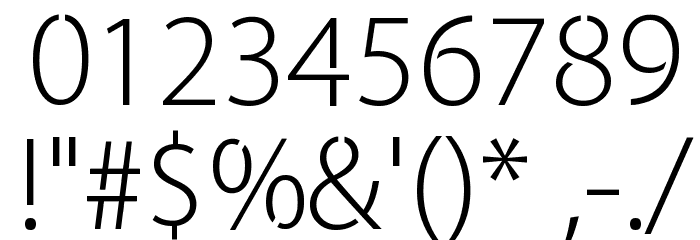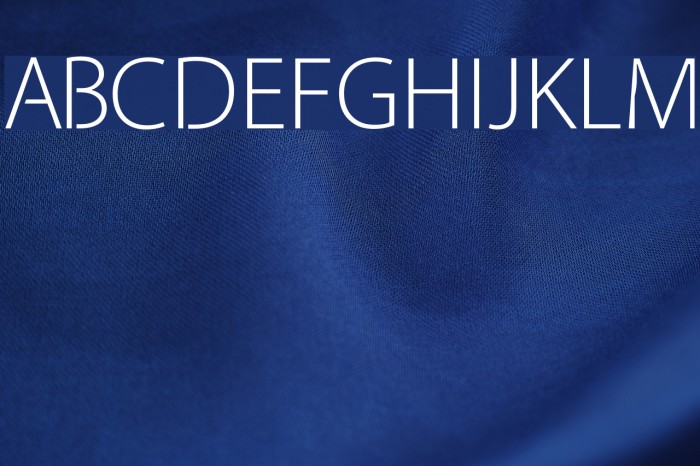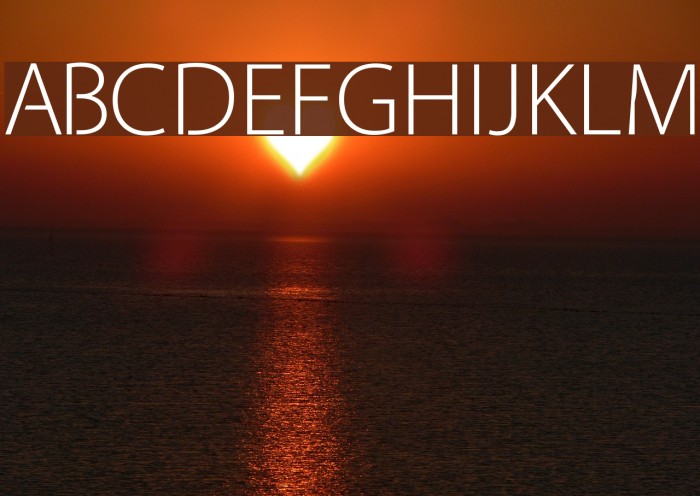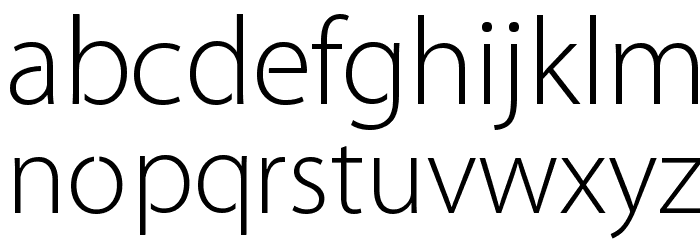
Cleanvertising-Light
This font features a clean and modern sans-serif design, characterized by its light weight and minimalistic style. The characters are evenly spaced with a normal width, providing a balanced and airy appearance. The uppercase and lowercase letters maintain a consistent height, contributing to a uniform look. The numerals are straightforward and align well with the overall aesthetic. Special characters are clearly defined, enhancing the font's versatility. The font's simplicity and clarity make it suitable for a wide range of applications, from digital to print media.
A clean, modern sans-serif font with a light weight and balanced design.
- Proposed Projects: Ideal for branding, advertising, web design, and editorial content.